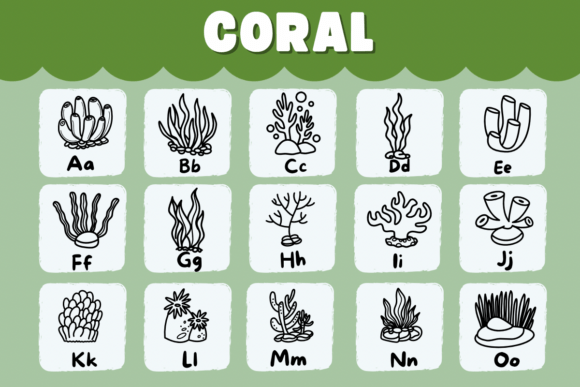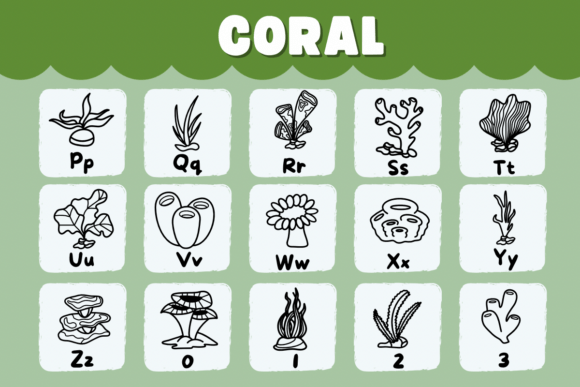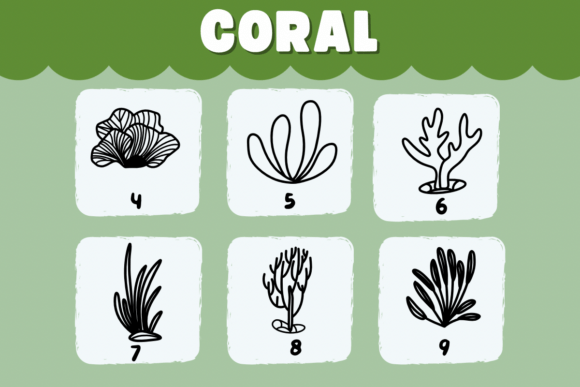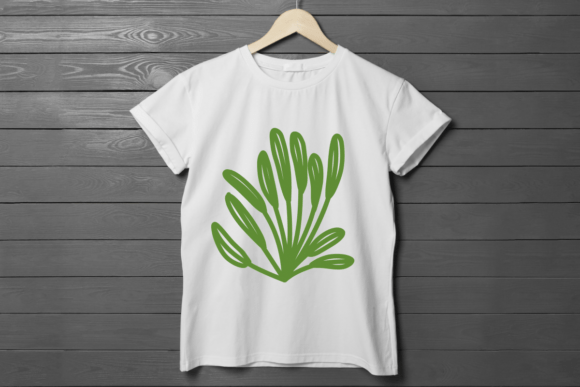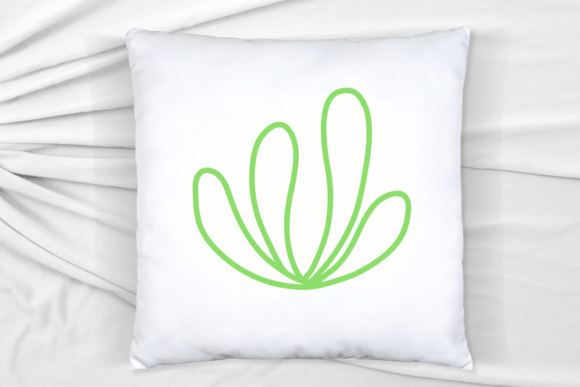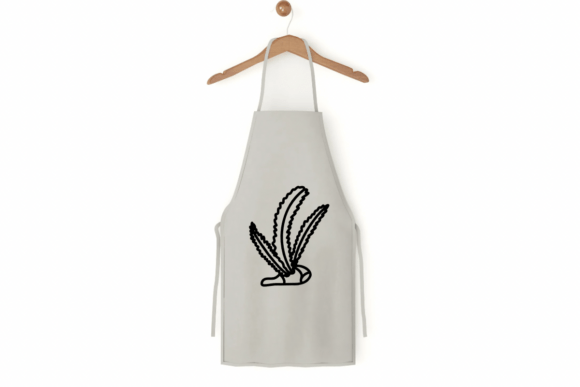
Introducing Coral Font: Elevate Your Creative Projects with a Natural Touch
In the world of design, the right font can make all the difference in bringing your creative projects to life. If you’re looking for a unique and versatile font that captures the essence of nature, look no further than Coral Font. This dingbats font is specifically designed to add a natural theme to your designs, making it perfect for a wide range of creative projects.
What is Coral Font?
Coral Font is a dingbats font that features a collection of natural elements, including flowers, leaves, and other organic shapes. The font is designed to resemble coral, with intricate details and a whimsical feel. The result is a font that is both elegant and playful, making it suitable for a variety of design applications.
Uses for Coral Font
Coral Font is incredibly versatile and can be used to enhance a wide range of creative projects. Here are just a few ideas to get you started:
- Wedding Invitations: Add a touch of natural elegance to your wedding invitations with Coral Font. Use it to highlight important details, such as the date, time, and location, or as a decorative element throughout the invitation.
- DIY and Crafts: Coral Font is perfect for DIY projects and crafts, such as handmade cards, gift tags, and scrapbooking. The font’s natural theme and whimsical feel make it a great fit for these types of projects.
- Decorations: Use Coral Font to create beautiful decorations for your home or event. You can use the font to create garlands, banners, and other decorative elements that feature natural themes.
- Logos: Coral Font can also be used to create unique and memorable logos for your business or brand. The font’s natural theme and elegant feel make it a great fit for businesses that specialize in outdoor activities, gardening, or wellness.
Benefits of Using Coral Font
There are many benefits to using Coral Font in your creative projects. Here are just a few:
- Unique and Eye-Catching: Coral Font is a unique and eye-catching font that is sure to grab attention. Its natural theme and whimsical feel make it a great way to add visual interest to your designs.
- Versatile: Coral Font is incredibly versatile and can be used in a wide range of design applications. Whether you’re creating wedding invitations, DIY projects, or logos, Coral Font is a great choice.
- Elegant and Playful: Coral Font has a elegant and playful feel that makes it perfect for a variety of design applications. The font’s natural theme and intricate details give it a sophisticated look that is sure to impress.
Tips for Using Coral Font
Here are a few tips for using Coral Font in your creative projects:
- Use it Sparingly: While Coral Font is a beautiful font, it can be overwhelming if used too much. Use it sparingly to add visual interest to your designs.
- Pair it with Other Fonts: Coral Font pairs well with a variety of other fonts, including serif and sans serif fonts. Experiment with different font combinations to find the perfect look for your design.
- Experiment with Colors: Coral Font looks great in a variety of colors, including pastels, brights, and metallics. Experiment with different colors to find the perfect look for your design.
Coral Font is a unique and versatile dingbats font that is perfect for adding a natural theme to your creative projects. With its elegant and playful feel, Coral Font is sure to elevate your designs and make them stand out. Whether you’re creating wedding invitations, DIY projects, or logos, Coral Font is a great choice. So why wait? Download Coral Font today and start creating beautiful designs that showcase your creativity and style.